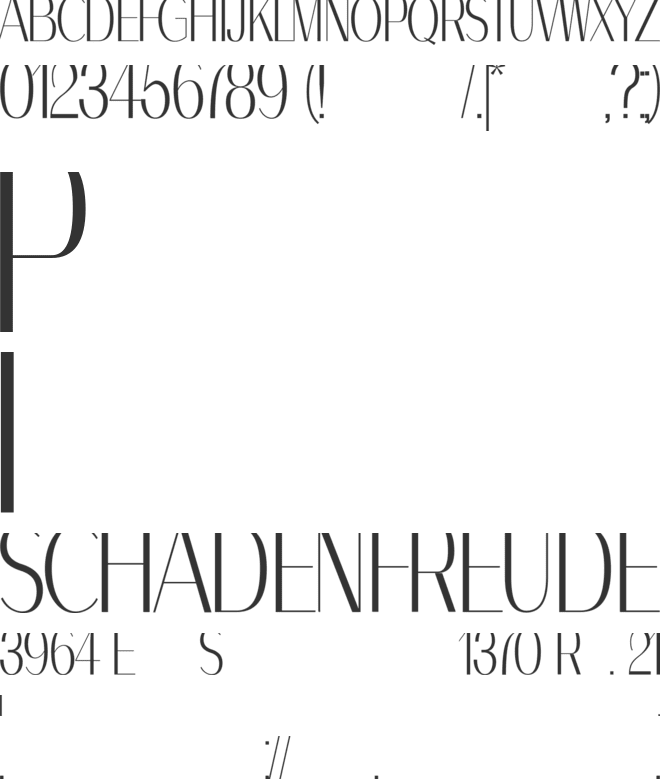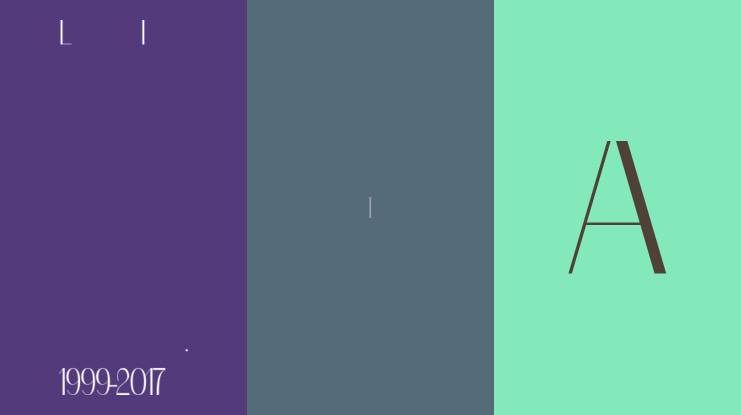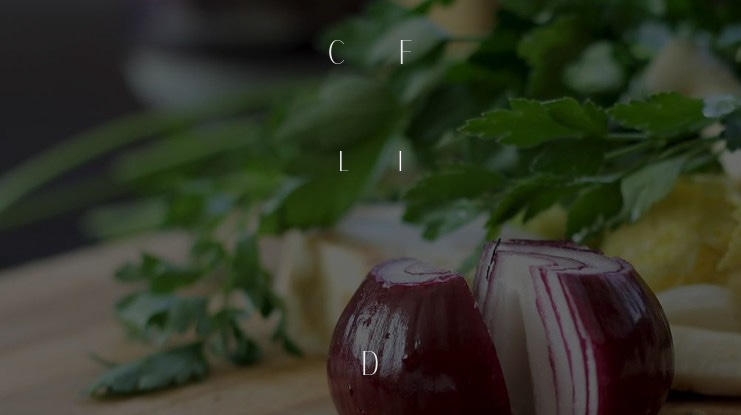
beddia Font Family
🎨 Font Name: Beddia by Minimalist Art Studio
🎨 Font Description: BEDDIA is a tall sans serif with modern clarity and minimalist charm, perfect for editorial, branding, and lifestyle design.
βœ” Alternates, stylistic sets & ligatures
βœ” Numbers, small caps, and extended punctuation
βœ” Bonus italics and family styles